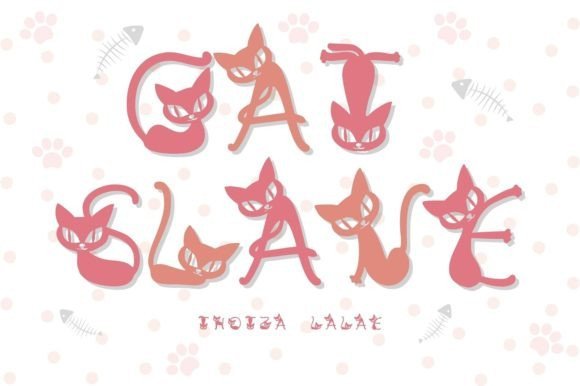
The Purr-fect Font: Unleashing the Magic of Cat Slave Font
Who hasn’t had a moment where their creativity is sparked by the mischievous antics of their feline friend? For designers, it’s no different. Sometimes, all it takes is a glimpse of a curious cat to inspire a new project. And for those who’ve been searching for the perfect font to capture that whimsical spirit, look no further than Cat Slave Font.
This charming font is designed to bring a touch of playfulness to any design project. With its fancy and cute design, Cat Slave Font is perfect for invitation embellishments, wall art, beverage logos, and seamless patterns. Whether you’re a seasoned designer or just starting out, this font is sure to be a valuable addition to your toolkit.
Cat Slave Font Key Features
- Font Family: Cat Slave Font is a unique, handwritten font with a distinctive feline-inspired design.
- Unique Characteristics: Features a mix of playful, cursive, and bold elements, making it suitable for various design styles, from casual to elegant.
Designer Review: Cat Slave Font
Overall, I found the Cat Slave Font to be a quirky and attention-grabbing addition to any design project. ✨ The unique, hand-drawn style of the font is sure to stand out in a crowded market, making it perfect for those looking to add a touch of whimsy to their branding or marketing materials.
- Unique Style: The Cat Slave Font’s hand-drawn aesthetic gives it a one-of-a-kind look that’s sure to grab attention.
- High-Quality Glyphs: The font includes a wide range of glyphs, including numbers and punctuation, making it a versatile option for designers.
- Customization Options: The font includes a range of customization options, allowing designers to tweak the font to fit their specific needs.
However, there are a few limitations to consider. ⚠️ The font may not be the best option for those looking for a more traditional or straightforward typeface, and the unique style may not appeal to everyone.
Overall, I would recommend the Cat Slave Font to designers looking to add a touch of personality to their projects. While it may not be the best option for every design, it’s certainly a unique and eye-catching choice.